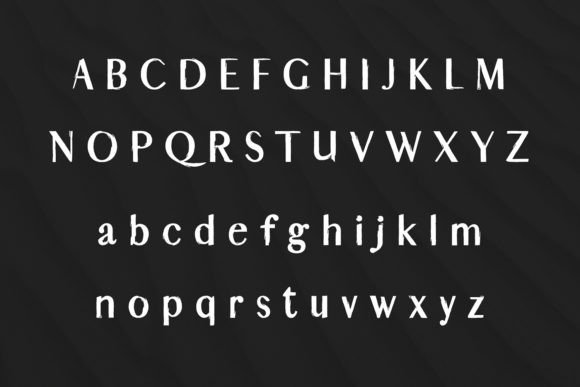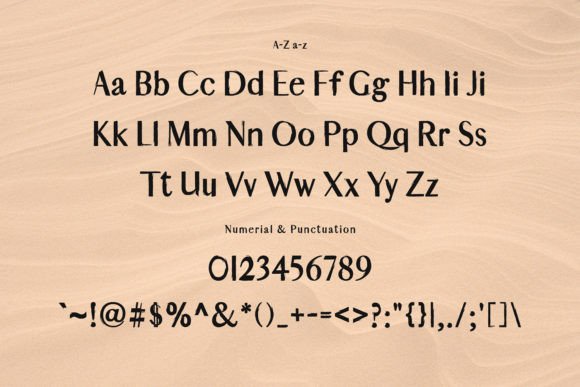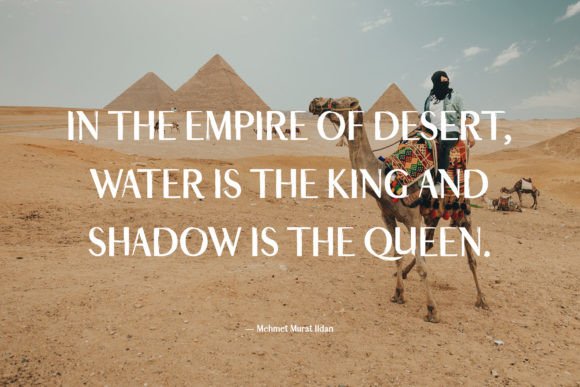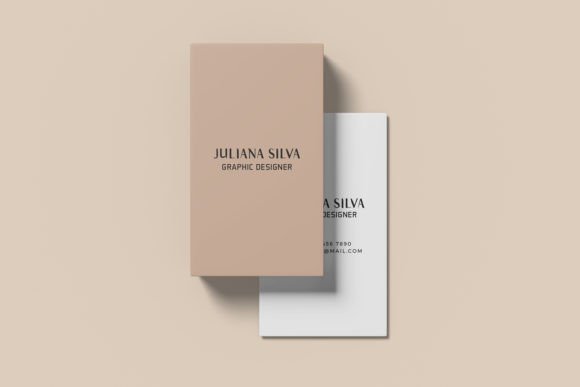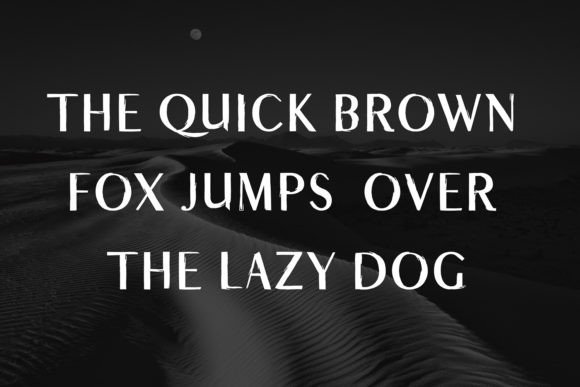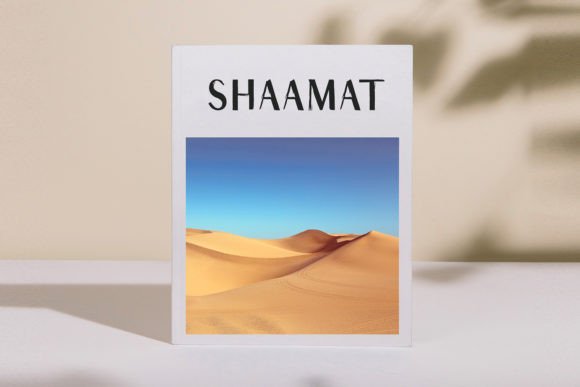
Introduction to Shaamat Font
You know that moment when you’re brainstorming a creative project, and the perfect font pops into your head, instantly elevating the entire concept? For designers, this is a game-changer. And today, we’re excited to introduce you to the Shaamat Font – a high-quality, unique brush display font that’s sure to take your designs to the next level.
Whether you’re working on a bold graphic design project or a free-spirited typography piece, the Shaamat Font is an incredible asset to have in your design arsenal. With its cool and artistic vibe, this font is the perfect addition to any creative project. And the best part? It’s available for a free download, making it an accessible design resource for designers of all levels.
With a transparent background and a wide range of design possibilities, the Shaamat Font is a valuable addition to any designer’s library. So why settle for a generic font when you can add a touch of personality to your designs with this stunning Shaamat Font?
Key Features of Shaamat Font
- High-quality vector design for use in creative projects, including logos, branding, and graphics.
- Comes with a transparent background, allowing for easy integration with various design elements.
- Shaamat Font is available in a single size, but can be scaled to fit various design requirements.
- Designed with a high resolution (at least 300 DPI), making it suitable for use in print and digital applications.
- Unique characteristics include a modern, elegant, and sophisticated style, making it perfect for luxury and high-end branding projects.
Honest Review: Shaamat Font
I recently came across the Shaamat Font, and I must say it’s a high-quality addition to any design project. The font is perfect for creating unique and creative designs, making it a valuable design resource for designers and artists.
One of the things that I love about the Shaamat Font is its versatility. It comes with a transparent background, making it easy to customize and pair with other design elements. This feature is particularly useful for designers who want to create a cohesive look and feel for their project.
Here are some of the things that work well with the Shaamat Font:
- ✨ Versatile font that can be used in a variety of contexts
- ✨ Easy to customize and pair with other design elements
However, there are some limitations to the Shaamat Font that designers should be aware of:
- ⚠️ Limited character set, which may not be suitable for longer text-based projects
Overall, I’m impressed with the Shaamat Font. It’s a great addition to any design project, and its high-quality design makes it a valuable resource for designers. With a little creativity, you can use the Shaamat Font to create unique and memorable designs that stand out from the crowd.
Introduction to Shaamat Font
The Shaamat Font is a high-quality design resource ideal for creative projects. This versatile font is available for free download and features a transparent background, making it perfect for various design applications.
The Shaamat Font is ideal for a variety of design projects, including logo design, branding, and typography-based art. Its high-quality design and transparent background make it a versatile resource for any creative project.